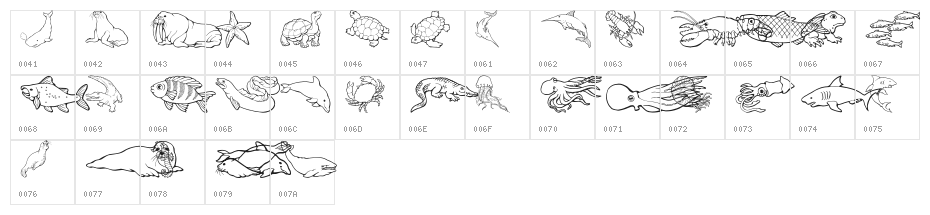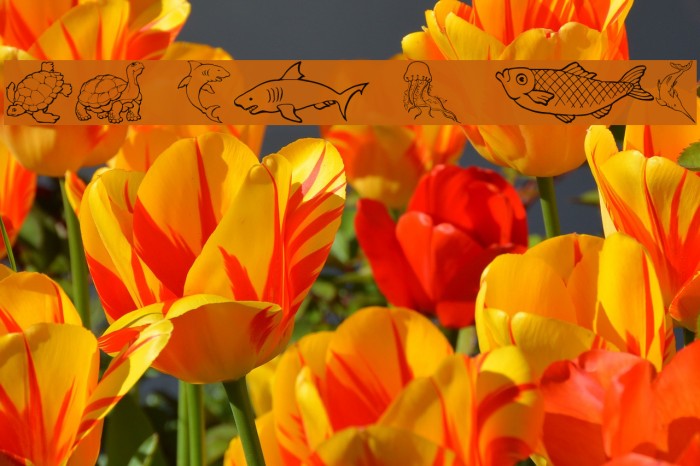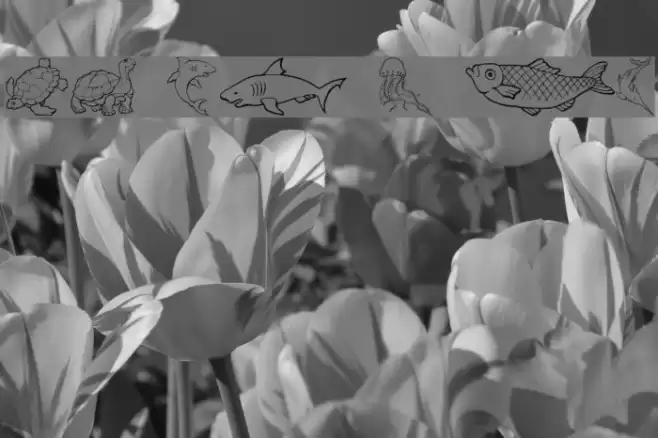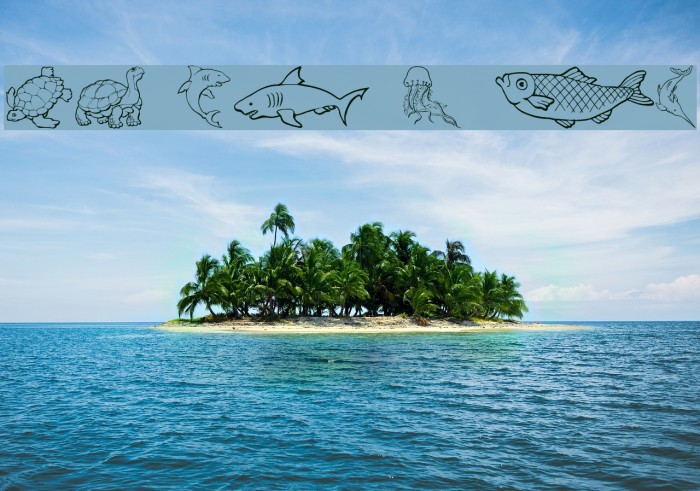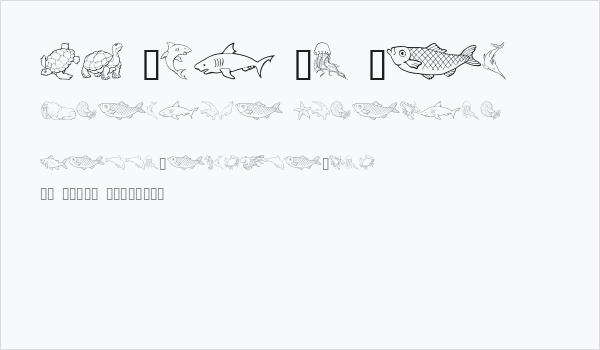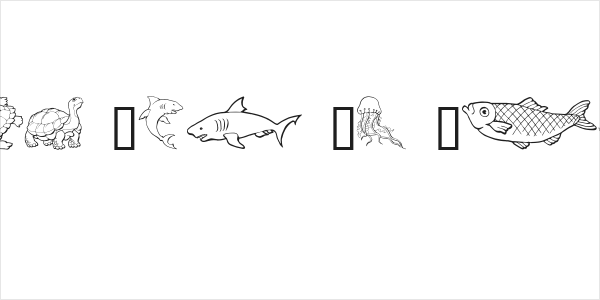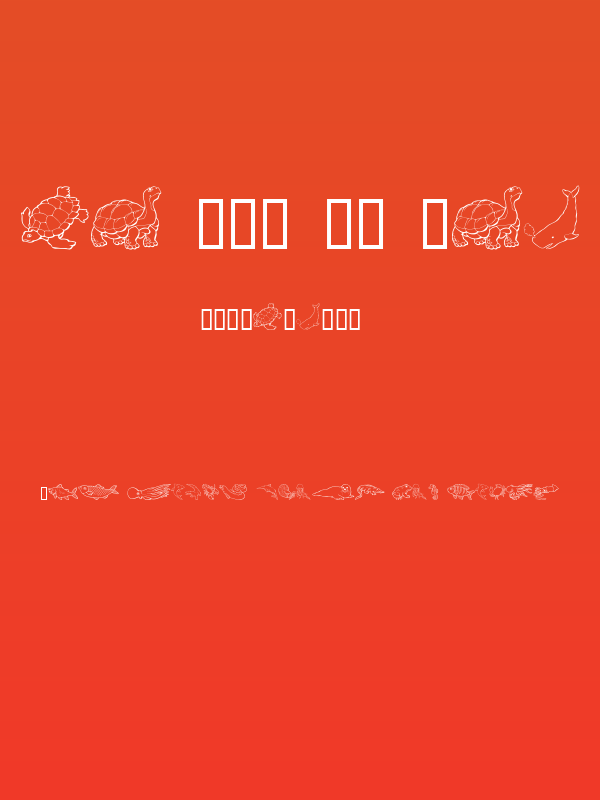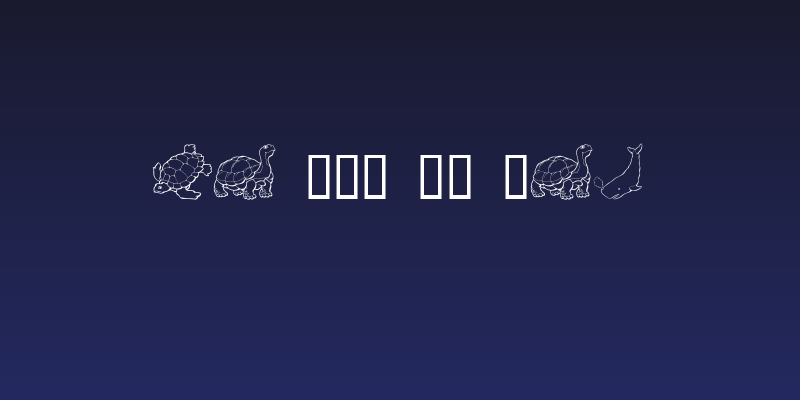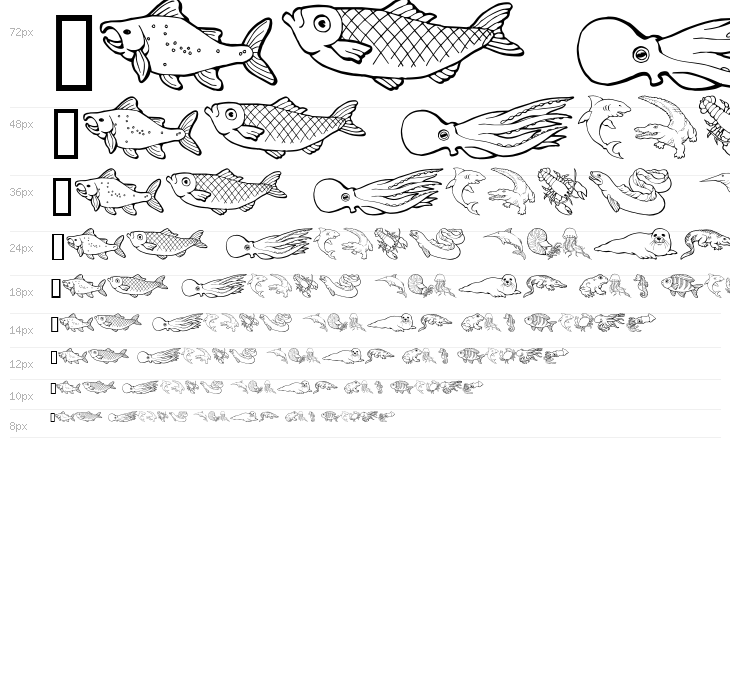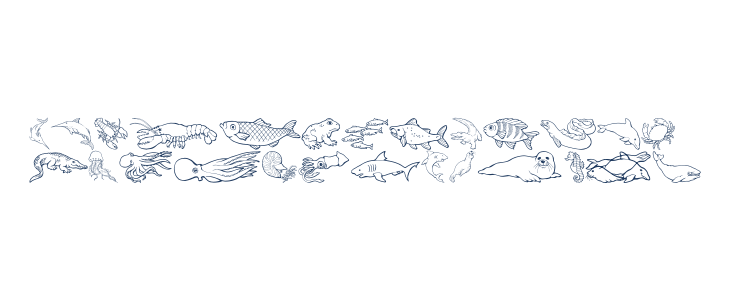
GE Out To Sea Font
GE Out To Sea Description
A decorative dingbat font featuring detailed line art illustrations of various sea animals such as walruses, turtles, starfish, fish, octopus, and seals. Each glyph is a unique marine-themed drawing, making it suitable for creative and playful projects.
| Overall Style | Decorative, Playful, Thematic |
| Use Case | Illustrative elements, Decorative accents, Themed graphics |
| Proposed Projects | ChildrenΓ’β¬β’s books, educational materials, ocean-themed party invitations, scrapbooking, posters, and creative design projects. |